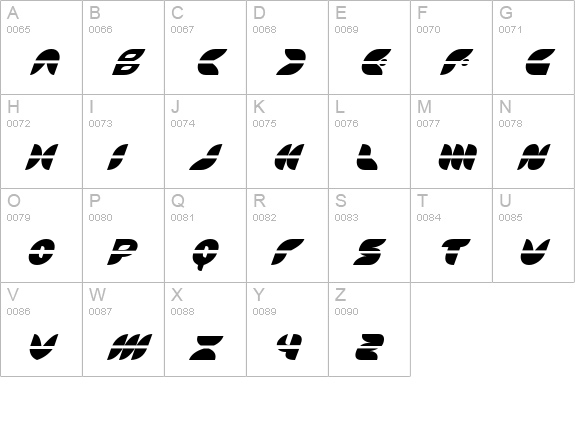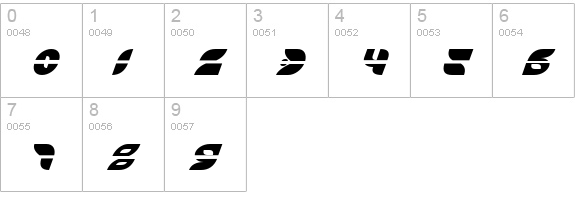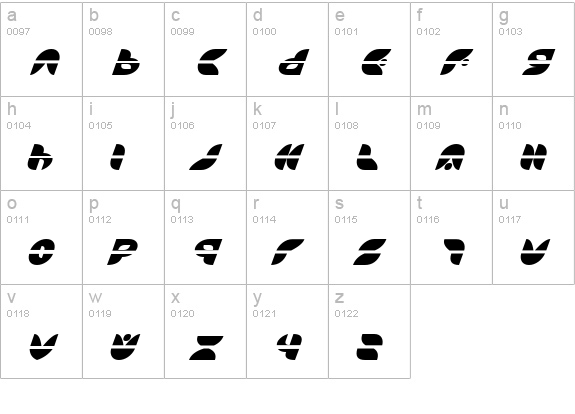
Puff Angel Laser Italic is a distinctive, italic variant in the Puff typeface family \xE2\x80\x94 well suited to design and typography projects.
Puff Angel Laser Italic font is a stunning display typeface that exudes elegance and sophistication. With its intricate laser-cut details and graceful curves, this font is perfect for adding a touch of modern flair to your designs. The italic style adds a sense of movement and drama, making it ideal for headings, quotes, and other attention-grabbing text. What's even better is that Puff Angel Laser Italic font is available for free download at FontsMarket.com. Yes, you read that right - you can easily access this beautiful font without any cost. So why wait? Enhance your projects with the striking Puff Angel Laser Italic font today!